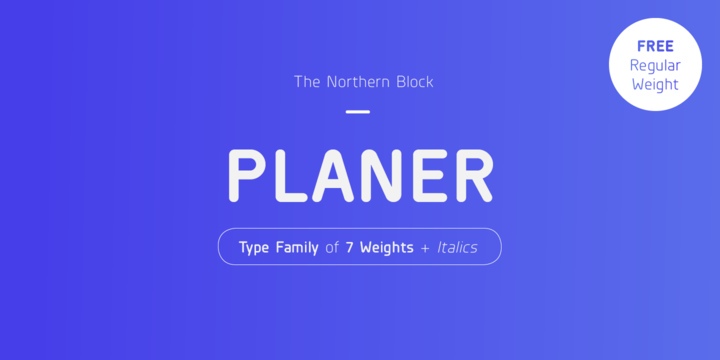
Planer Font
Planer Font is perfect for systematic planning agencies, strategic organization consultants, methodical project management firms, structured workflow companies, organized efficiency services, and systematic coordination platforms. Its organized character makes it ideal for planning software developers, systematic training programs, organized event coordinators, strategic business planners, methodical construction managers, and any project requiring systematic excellence with organized precision and strategic planning appeal.
This font is exciting because it embodies the essential principles of systematic organization and strategic planning while delivering exceptional functionality for organizations dedicated to creating order, efficiency, and methodical success through careful planning and systematic execution. The systematically crafted letterforms reflect the precision and organizational thinking that transforms chaos into structured success and achievable goals.
The Planer Font family typically includes Light, Regular, Medium, and Bold weights with systematic alternates, organizational ligatures, and planning elements that enhance its methodical personality. This comprehensive collection enables planning professionals to create authoritative brand systems that maintain organizational credibility while offering flexibility for various systematic applications requiring both planning authority and contemporary organizational market positioning.
Whether you're developing identity systems for planning consultancies, creating materials for organizational efficiency services, or designing promotional content for systematic management companies, Planer Font Free Download delivers the organizational precision and systematic appeal that connects with audiences seeking structured solutions and methodical excellence. Its organized presence ensures reliable brand recognition across digital platforms and print materials, making it perfect for websites, mobile applications, and planning campaigns that celebrate systematic organization, strategic planning, and the transformative power of methodical execution with contemporary organizational standards and authentic systematic excellence.